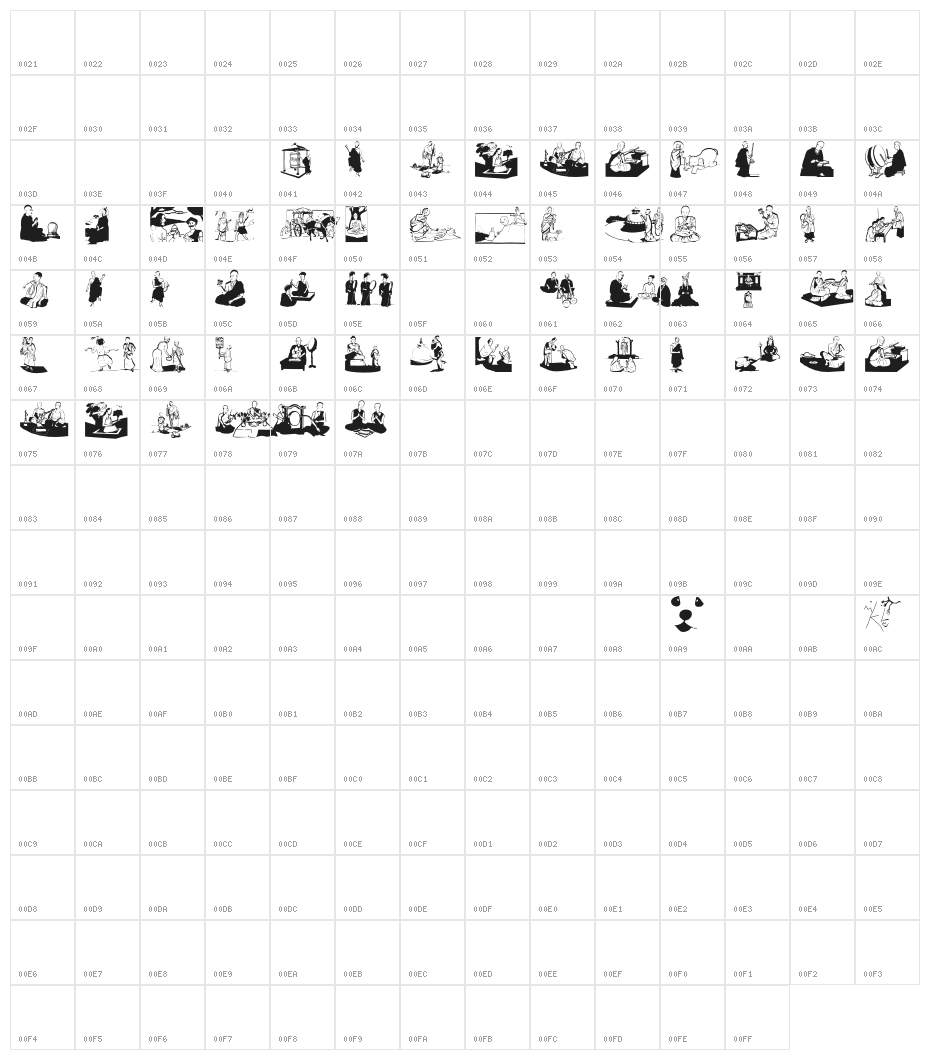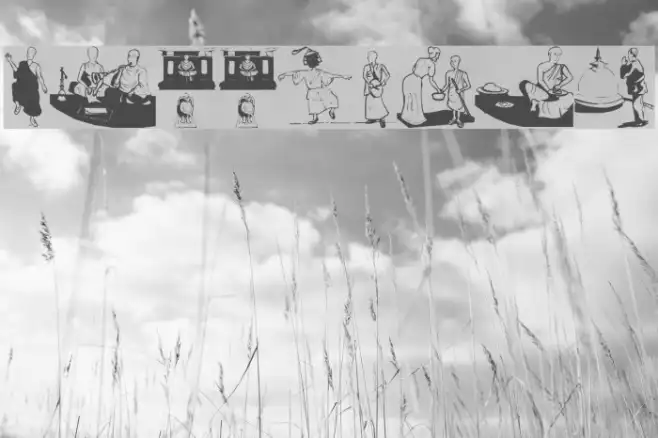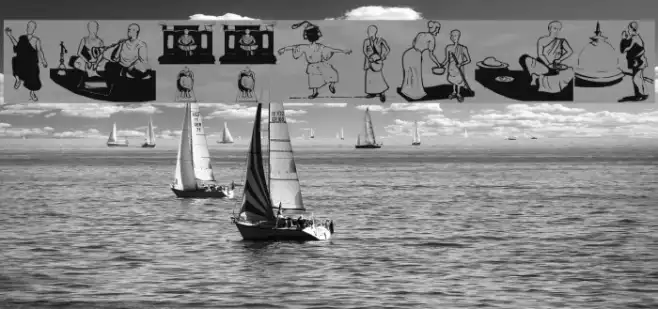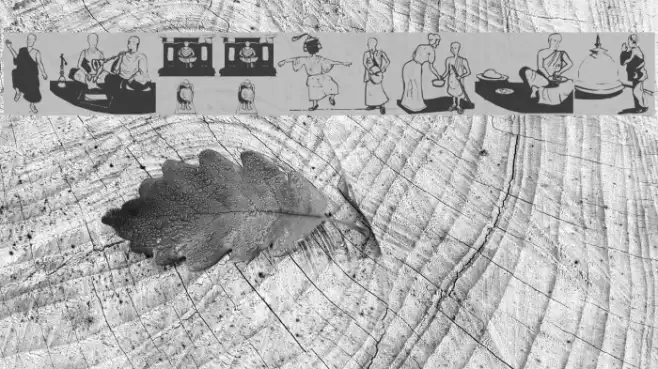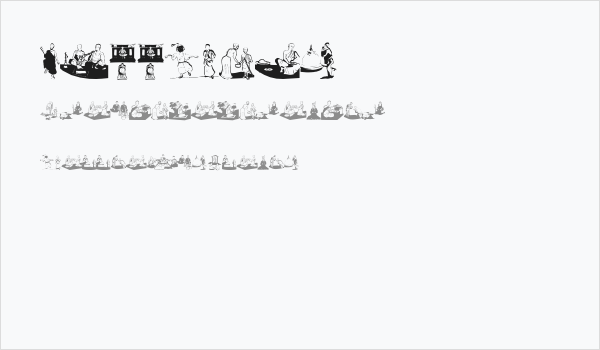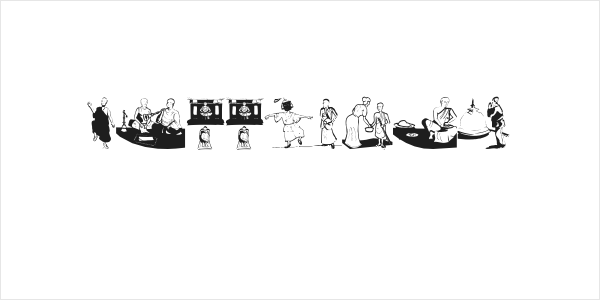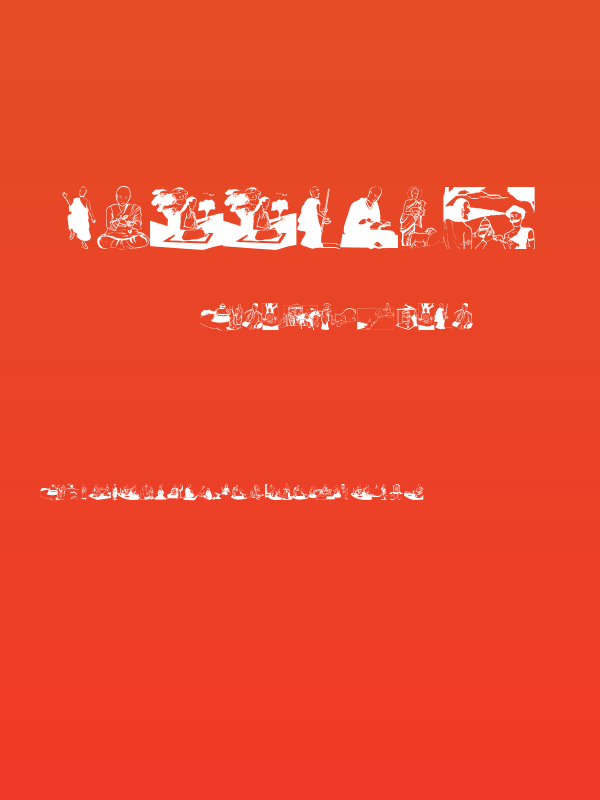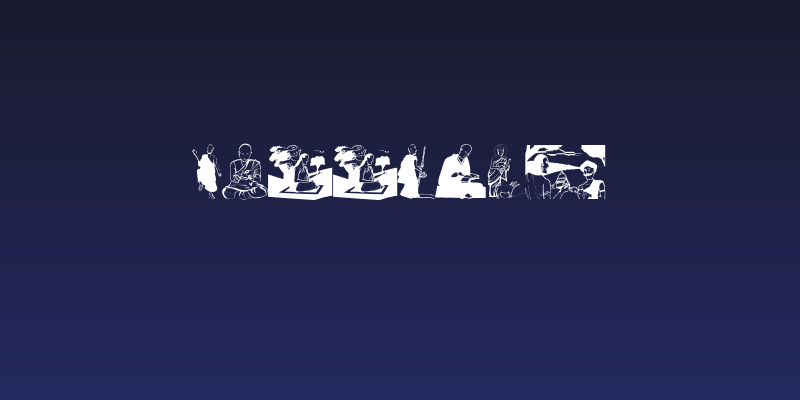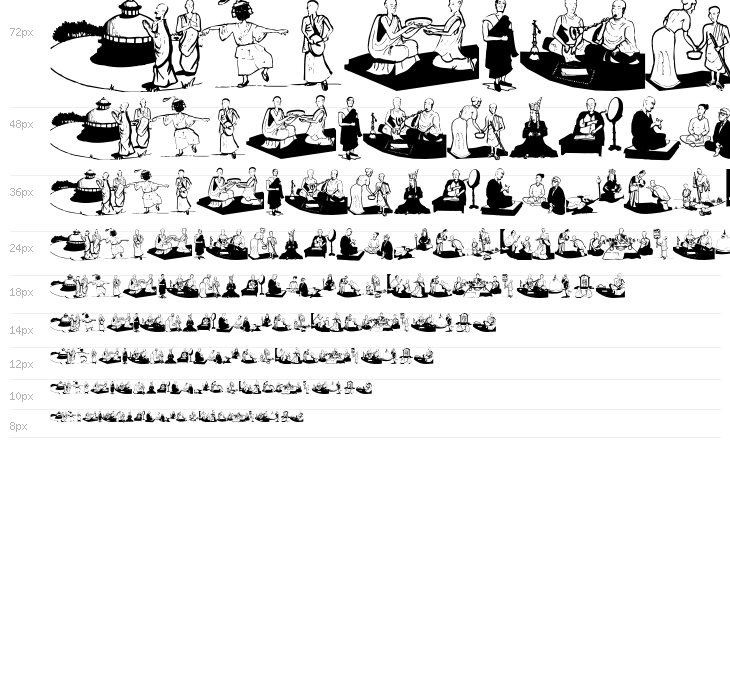
Buddhism Font
Buddhism Description
A highly decorative and illustrative font where each character is represented by a detailed black-and-white drawing depicting Buddhist monks, rituals, and scenes from Buddhist life. The glyphs are pictorial rather than typographic, making each letter a unique miniature illustration.
| Overall Style | Decorative, Illustrative, Thematic |
| Use Case | Display, Posters, Themed Art, Titles |
| Proposed Projects | Educational posters, themed event invitations, spiritual or religious publications, decorative headings, art projects. |